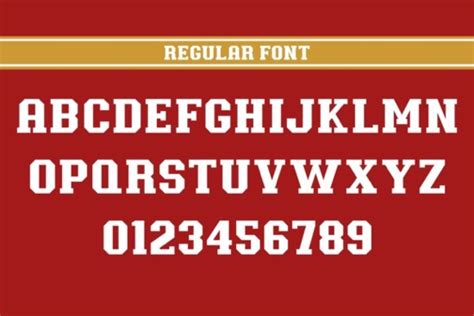
Font News 706: Bold Typeface Trends
The Power of Bold: Making a Statement with Fonts
Hey, font fanatics! Let's dive into the electrifying world of bold typefaces , shall we? In the ever-evolving landscape of design, certain trends emerge that just demand attention, and right now, bold fonts are definitely having their moment. We're not just talking about your standard bold setting; we're exploring the thick, impactful, and downright *unmissable* styles that are making waves. Think of it as the visual equivalent of shouting from the rooftops – in the best way possible! Bold fonts are no longer just for headlines; they're weaving their way into body text, branding, and even digital interfaces, proving their versatility and undeniable impact. Why are designers flocking to these chunky characters? Well, for starters, they offer incredible readability, especially on smaller screens or from a distance. They command attention, drawing the eye immediately to key information, which is crucial in a world saturated with visual noise. Furthermore, a well-chosen bold font can instantly inject personality and attitude into a design. It can convey strength, confidence, and a sense of urgency, making it a powerful tool for storytelling. Whether you're aiming for a modern, minimalist aesthetic with a single, striking bold word or a more dynamic, energetic vibe with a full block of text in a robust typeface, the possibilities are endless. We'll be unpacking the different types of bold fonts, exploring their applications, and highlighting some of the most exciting examples hitting the design scene. So grab your favorite beverage, get comfortable, and let's get ready to make some noise with type!
Exploring the Spectrum of Bold Fonts
Alright guys, so when we say bold fonts , what immediately springs to mind? Probably something thick and heavy, right? But the truth is, 'bold' is a spectrum, and understanding this nuance is key to really nailing your typography. We've got everything from the subtle warmth of a semi-bold to the sheer, unapologetic dominance of an extra-black or ultra-bold. Semi-bold offers a gentle emphasis, perfect for highlighting key phrases within a paragraph without disrupting the flow. It's like a friendly nudge in the right direction. Then we move up the ladder to bold , the classic workhorse that provides solid emphasis for headlines, subheadings, and calls to action. It's reliable and effective. Push it further into extra-bold or heavy , and you're entering territory where the font truly becomes a design element in itself. These are the fonts that grab you by the lapels and demand your attention. They're fantastic for creating visual hierarchy and can even replace imagery in certain contexts. Finally, we reach the pinnacle of thickness with ultra-bold or black . These are the typographic titans, designed to make an undeniable statement. They're perfect for single words, impactful logos, or when you want your text to be the absolute star of the show. Think of the difference between a well-tailored suit (semi-bold) and a superhero's cape (ultra-bold) – both serve a purpose, but their impact is dramatically different. When choosing your bold, consider the message you want to send. Are you aiming for sophistication and subtle emphasis, or are you going for raw power and maximum visibility? The subtle differences in weight can completely alter the mood and perception of your design. So next time you're browsing for that perfect font, don't just look for 'bold'; explore the entire range and find the weight that truly speaks your design's language. This exploration is crucial for anyone looking to master the art of typography and ensure their message lands with the intended impact.
Why Bold is Now! Current Design Applications
So, why are bold fonts absolutely killing it in design right now? It's all about making an impact in a crowded digital and print world. In the fast-paced online environment, users often skim content. A bold typeface helps crucial information stand out immediately, guiding the reader's eye and improving comprehension. Think about e-commerce sites: a bold price or a 'buy now' button in a strong font is far more likely to catch a potential customer's attention. Similarly, on social media, where posts compete for attention in a never-ending feed, bold headlines and key phrases can be the difference between a scroll-past and an engagement. *Branding* is another massive area where bold fonts are shining. A bold logotype can instantly convey confidence, strength, and modernity, helping a brand carve out a distinct identity. Imagine a startup wanting to project innovation and disruption – a chunky, sans-serif bold font can communicate this vibe far more effectively than a delicate script. In editorial design, whether it's magazines, newspapers, or websites, bold fonts are used to create dynamic layouts and emphasize important stories or statistics. They break up blocks of text, add visual interest, and ensure that readers can quickly identify the most salient points. Even in user interface (UI) design, bold fonts are increasingly used for navigation elements, error messages, and calls to action, ensuring that users can easily understand and interact with the interface. The tactile nature of bold type also adds a sense of weight and importance, making digital experiences feel more substantial and trustworthy. It's not just about aesthetics; it's about *functionality* and *communication*. Bold fonts help us cut through the clutter, convey authority, and create memorable visual experiences. They're versatile enough to work across various platforms and industries, making them an indispensable tool in any designer's arsenal. The trend isn't just a fleeting fad; it's a reflection of our need for clear, impactful communication in an increasingly complex world. So, embrace the bold, guys – it's where the design action is happening!
Tips for Using Bold Typefaces Effectively
Alright team, you're convinced that bold fonts are the bee's knees, but how do you use them without going overboard? That's the million-dollar question, right? Using bold effectively is an art form, and like any good artist, you need the right techniques. First off, *less is more*. Don't make every single word bold – that defeats the purpose and looks chaotic. Reserve your bold usage for truly important elements: headlines, subheadings, key statistics, or action-oriented text like 'Sign Up' or 'Learn More'. Think of it as strategic highlighting. Another golden rule is *contrast*. A bold font stands out best when it has something to contrast against. Pair your bold typeface with a lighter weight or a different, more subdued font for body text. This creates visual harmony and ensures your bold elements truly pop. Consider the context of your design. A super heavy, display bold might be perfect for a poster, but it could be overkill for a lengthy article in a newspaper. Always think about the *readability* and the overall tone you're aiming for. A good tip is to test your design on different screen sizes and at different viewing distances to ensure your bold elements are clear and legible. Don't forget about *kerning* and *tracking*. For very thick bold fonts, especially in larger sizes, you might need to adjust the spacing between letters (kerning) or words (tracking) to maintain visual balance and prevent them from looking too cramped. Explore font families that offer a wide range of weights. This allows you to maintain consistency in style while varying the emphasis, creating a cohesive and professional look. Remember, the goal of using bold is to guide your audience, emphasize what's important, and make your design more engaging. It's about adding impact without sacrificing clarity or style. So, use that power wisely, and your designs will thank you for it!
The Future of Bold: What's Next?
So, what’s on the horizon for bold fonts , you ask? While bold has firmly cemented its place in the design playbook, its future is looking even more dynamic and experimental. We're seeing a move towards even more *expressive and unconventional* bold styles. Think custom bold lettering, highly stylized serifs and sans-serifs that are intentionally thick and attention-grabbing, and even bold fonts that play with texture and dimensionality. The digital realm is also opening up new avenues. Expect to see more interactive bold typography, where the boldness itself is animated or responsive to user actions, adding another layer of engagement. We're also likely to see bold fonts pushing the boundaries in variable font technology, allowing for even finer control over weight and other typographic parameters, perhaps even creating 'dynamic bold' that adjusts itself based on context. The 'brutalism' trend in web design, with its raw and often bold typography, also suggests a continued appreciation for impactful and unadorned type. As designers continue to seek ways to cut through the digital noise and create memorable experiences, the power of bold is unlikely to wane. Instead, it will evolve, becoming more sophisticated, more playful, and even more integrated into the overall narrative of a design. So, even though bold fonts are here to stay, expect them to keep surprising us with their versatility and creative potential. The future of bold is bright, chunky, and full of exciting possibilities!